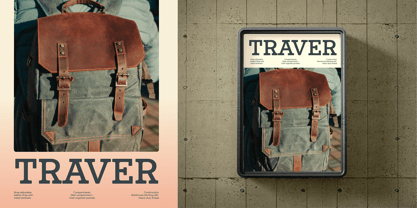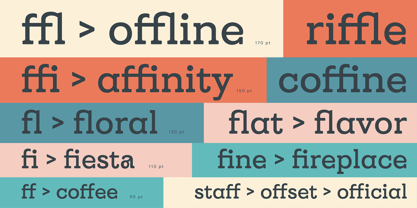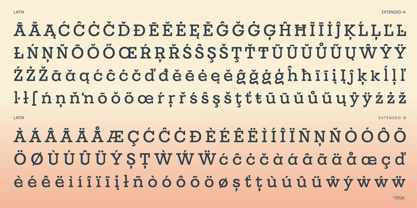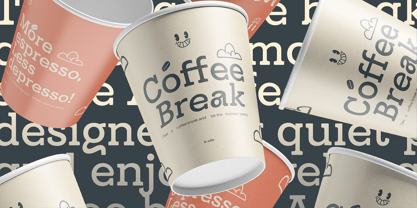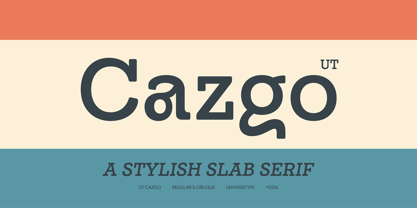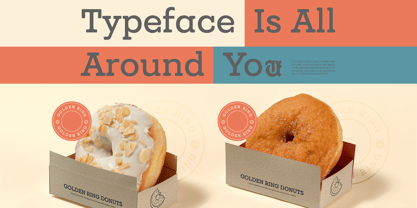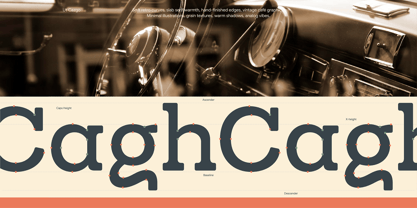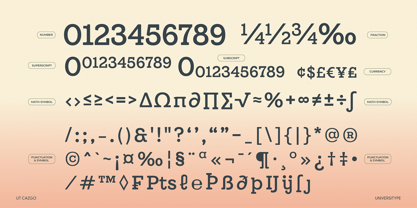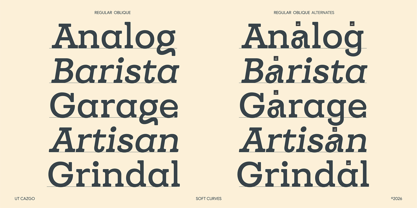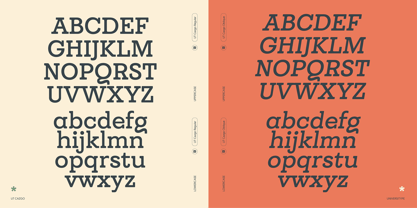
UT Cazgo
by Universitype
The UT Cazgo Font Family was designed by Muh. Aswar, Andi Syahdang and published by Universitype. UT Cazgo contains 2 styles and family package options. More about this family
UT Cazgo is a slab serif typeface that blends sturdy construction with a relaxed, human touch. Designed by Universitype, it features soft curves, subtly uneven edges, and a calm weight that feels confident without looking rigid. Instead of strict geometry, UT Cazgo leans into hand-finished details that make the letters feel lived-in and familiar. The overall tone feels honest and tactile. It carries echoes of industrial lettering while staying friendly enough for modern branding. From logos to packaging, UT Cazgo brings a warm, analog presence that works beautifully in both digital and print settings. Best for : Brand identity designers working with artisan, lifestyle, or heritage-focused businesses Packaging designers who want bold type with a handcrafted feel Editorial designers creating food, travel, or culture-driven layouts Apparel and merchandise designers for t-shirts, totes, and graphic goods Key Features Soft slab serifs with rounded corners for a warmer appearance Regular and Oblique styles for flexible emphasis and hierarchy Stylistic alternates, including single-story and double-story letter options Standard and discretionary ligatures for smoother letter connections Distinctive glyphs such as the playful lowercase g, sharp z, and expressive ampersand Inspiration Behind the Design UT Cazgo takes cues from classic mills, workshop signage, and old café lettering. The design draws from hand-painted storefronts, vintage manuals, and worn enamel signs—places where letters were shaped by tools, not grids. That influence shows up in the soft edges and slightly organic rhythm, giving the typeface a timeless, work-worn character that still feels current.
Designers: Muh. Aswar, Andi Syahdang
Foundry: Universitype